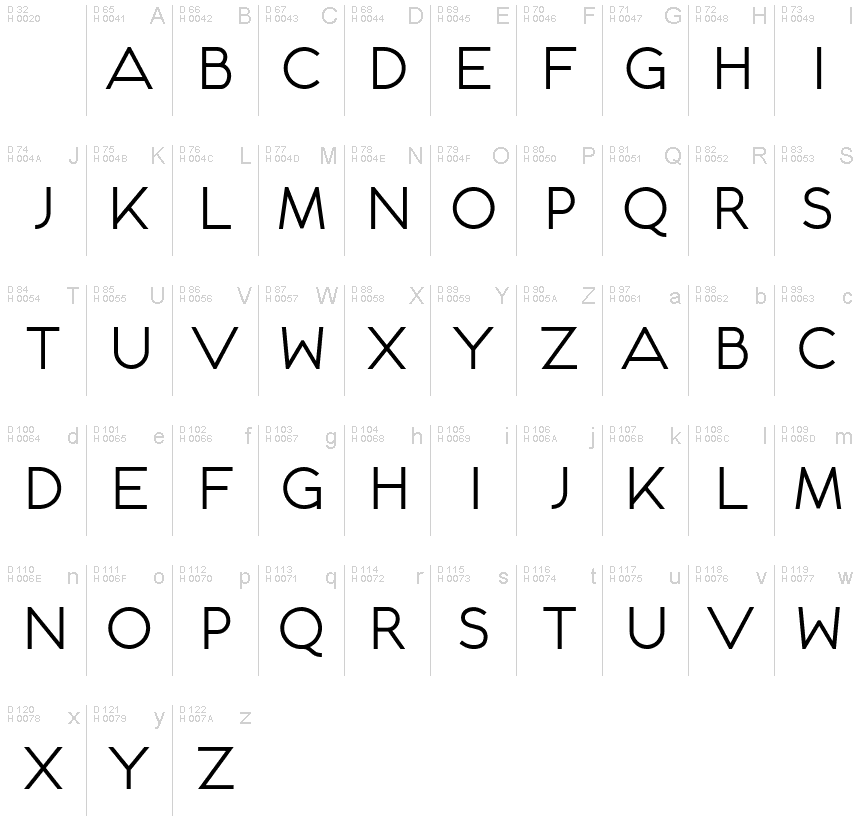
Mladen Bold
Mladen Bold, a creation by font designer Vladimir Nikolic, is an exquisite addition to the Mladen font family. With its sleek and modern sans serif style, this semi-light typeface exudes elegance and sophistication.
The semi-expanded width of Mladen Bold allows for enhanced legibility and versatility, making it suitable for a wide range of projects. Whether you're designing eye-catching logos, professional business cards, or captivating headlines for your website or blog, Mladen Bold is the perfect choice to make a bold statement that captivates and leaves a lasting impression.
"Mladen" comes in Regular, Bold and Black!